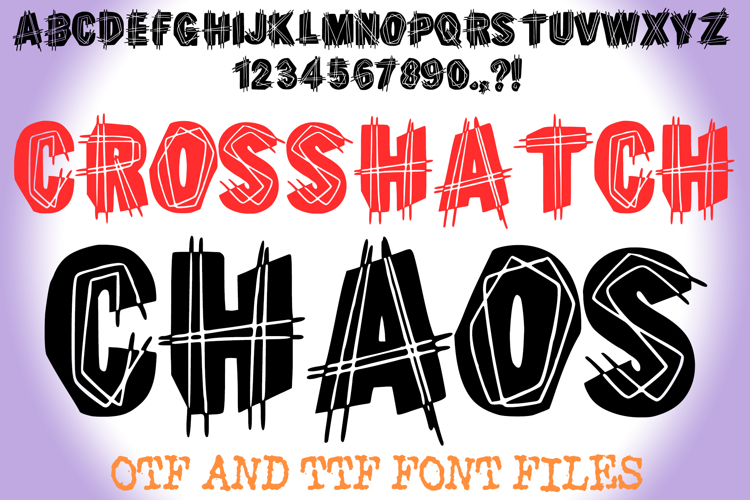
Crosshatch Chaos Lettering ABC Riot Punk Font Typeface OTF
Unleash your creativity with the Crosshatch Chaos Font, a bold hand-drawn display typeface bursting with artistic energy and edgy style. Designed with overlapping sketch lines and a unique scribbled look, this font adds a chaotic yet controlled flair to any project.
Perfect for punk posters, edgy branding, t-shirt designs, album covers, social media graphics, and DIY crafts, Crosshatch Chaos brings personality and movement to your words.
Bring a touch of rebellion and creativity to your designs with this grunge-inspired, hand-drawn lettering font that stands out in any project.